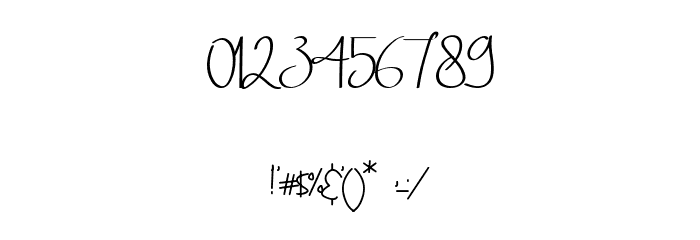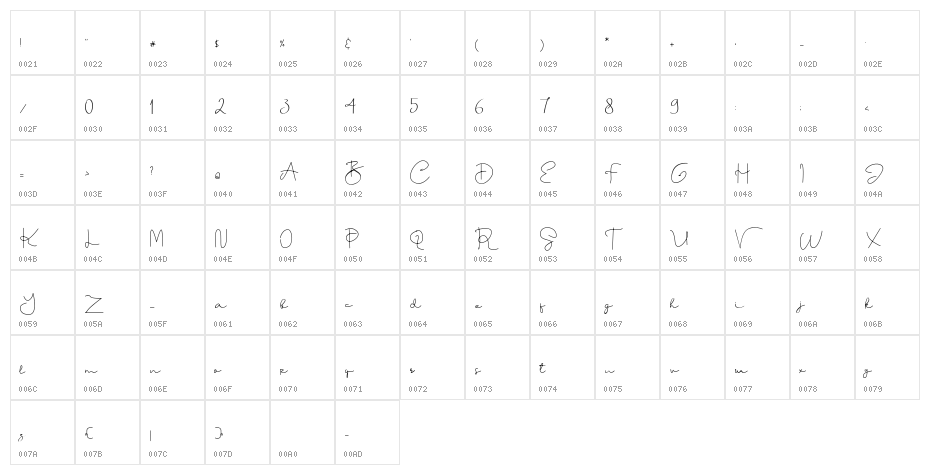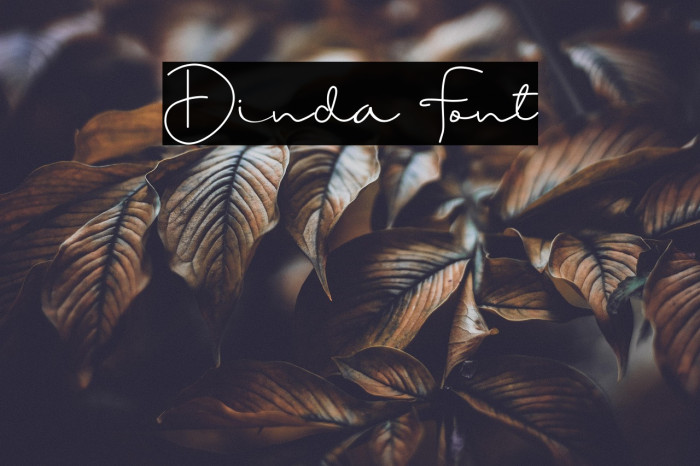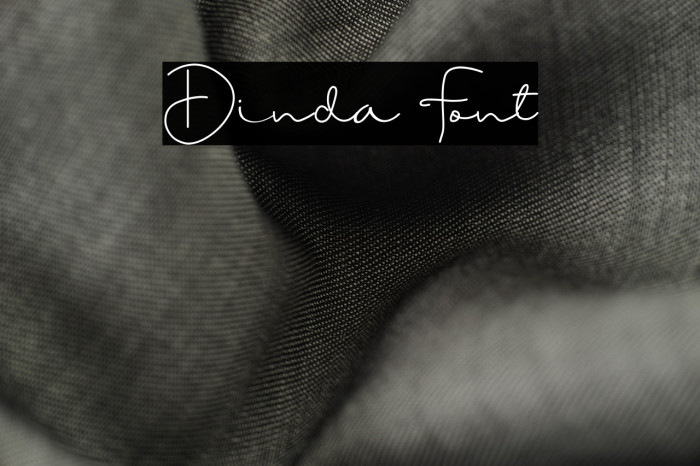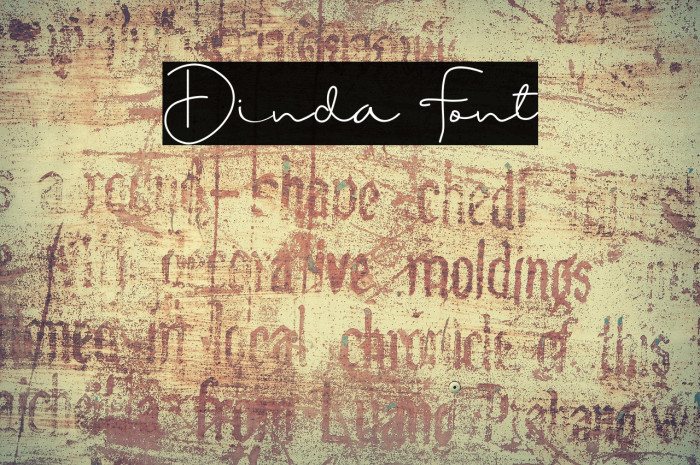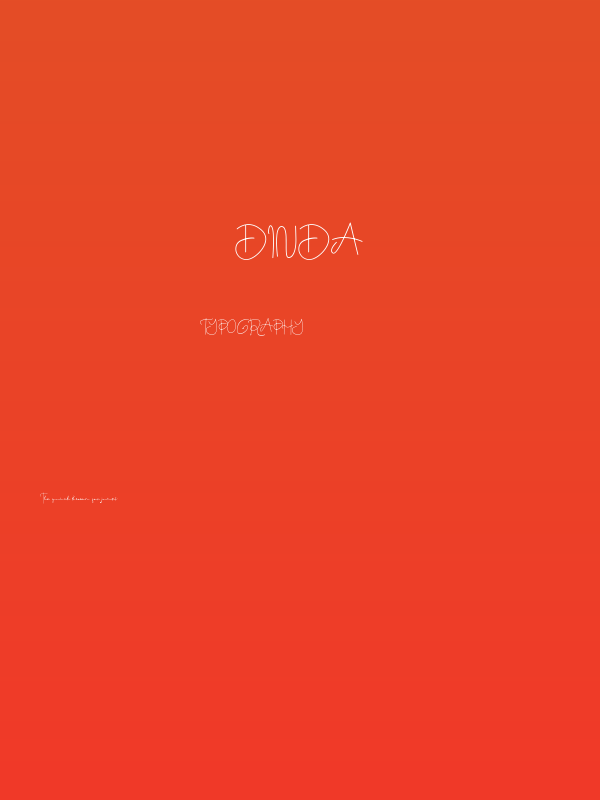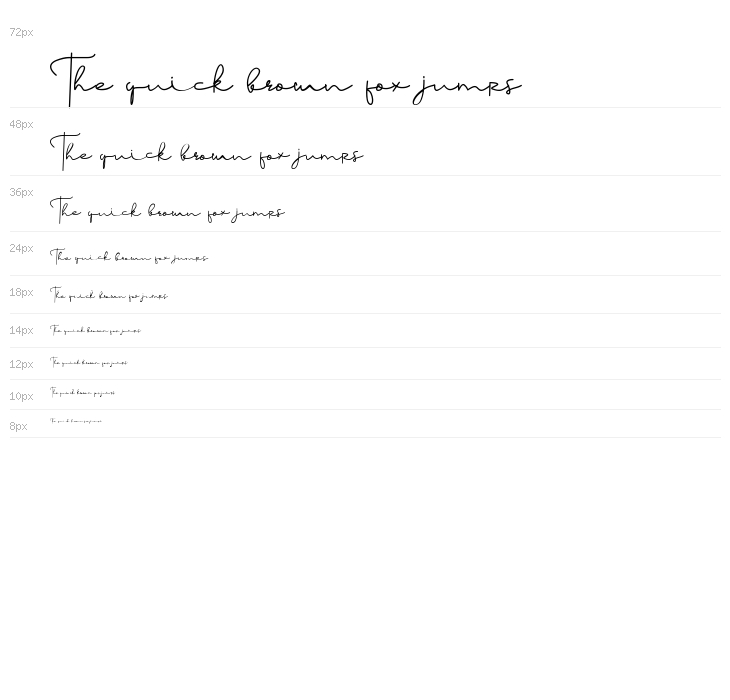
Dinda Font
Dinda Description
This font features a whimsical and playful design, characterized by its thin, flowing lines and a hand-drawn aesthetic. The uppercase letters are tall and slightly irregular, giving a sense of spontaneity and creativity. The lowercase letters maintain a consistent flow, with loops and curves that add to the font's charm. Numbers and special characters are designed to match the overall style, ensuring a cohesive look. The font's light strokes and airy feel make it suitable for projects that require a touch of elegance and informality.
| Proposed Projects | Ideal for greeting cards, invitations, personal branding, and creative projects that require a touch of whimsy. |